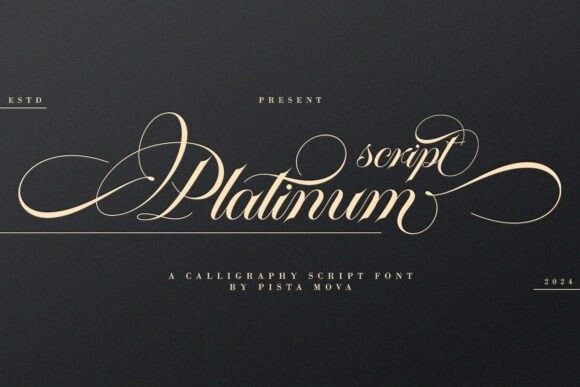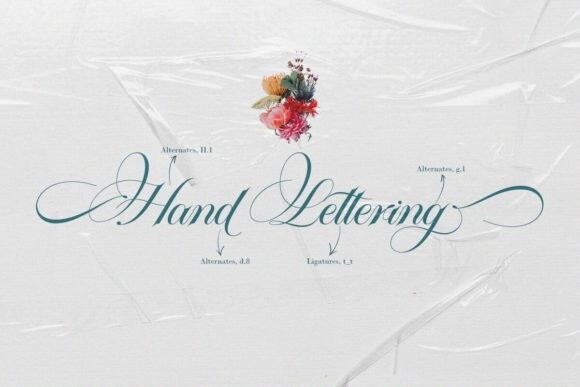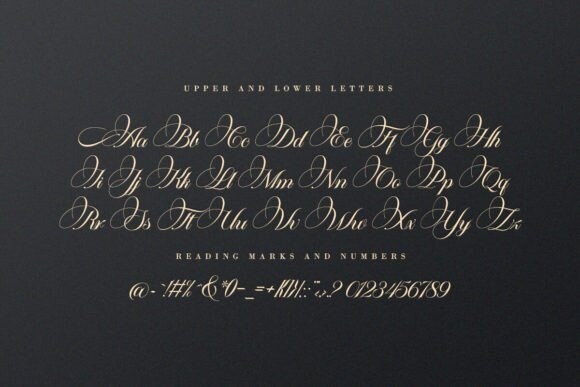
Platinum Script Font
Platinum script Font is an Elegant and Soft font made with a relaxed hand. It is a classic font but has modern elements in it, so it is very suitable for wedding media, book covers, greeting cards, logos, branding, business cards, and certificates, even for any design work that requires a classic, formal, or luxurious impression.